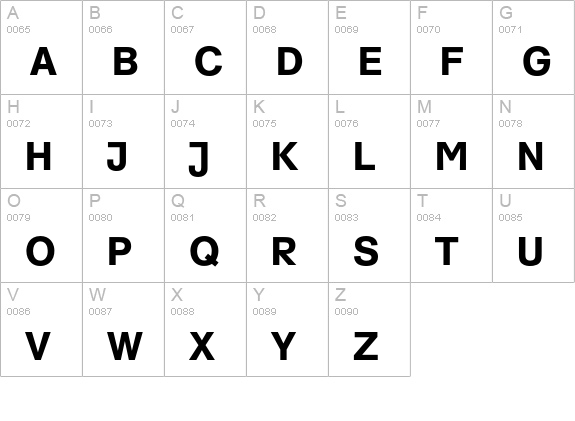
Akzidenz-Grotesk Schulbuch Medium Font Details
Akzidenz-Grotesk Schulbuch Medium is a balanced, medium-weight variant in the Akzidenz typeface family \xE2\x80\x94 well suited to sub-headlines, navigation, and balanced editorial work.
Akzidenz-Grotesk Schulbuch Medium is a versatile and modern font that exudes elegance and sophistication. Its clean lines and balanced proportions make it perfect for a wide range of design projects, from editorial layouts to branding and packaging. The medium weight strikes the ideal balance between readability and impact, making it a go-to choice for designers looking to make a statement. Best of all, Akzidenz-Grotesk Schulbuch Medium is available for free download at FontsMarket.com. This means you can easily access this high-quality font to elevate your designs without breaking the bank. Whether you're working on a print project or a digital campaign, Akzidenz-Grotesk Schulbuch Medium is sure to add a touch of professionalism and style to your work. Download it today and take your designs to the next level!